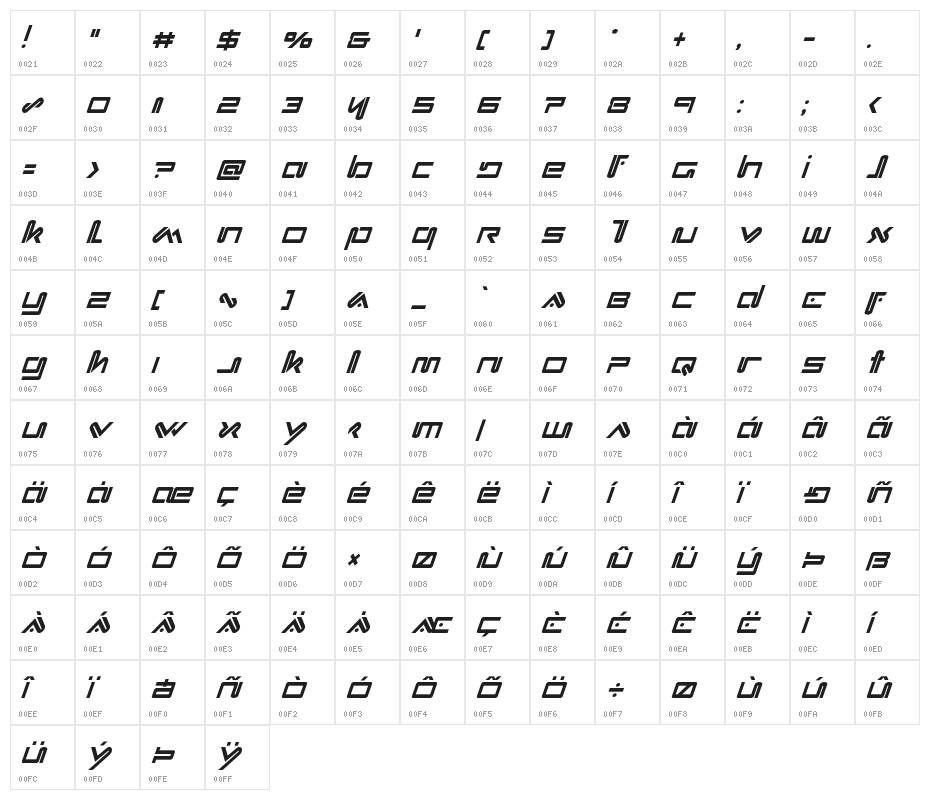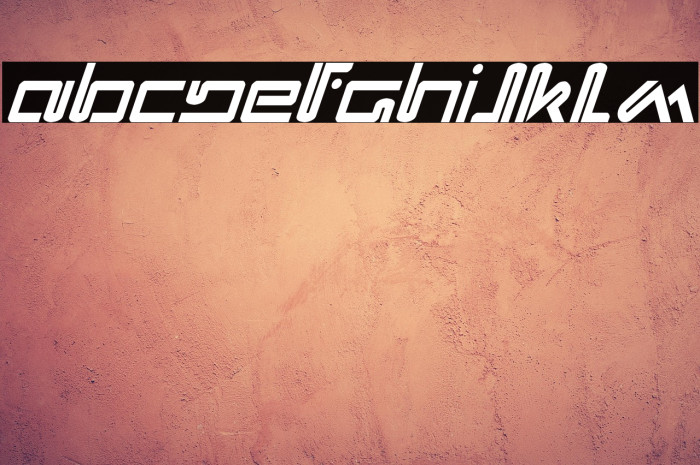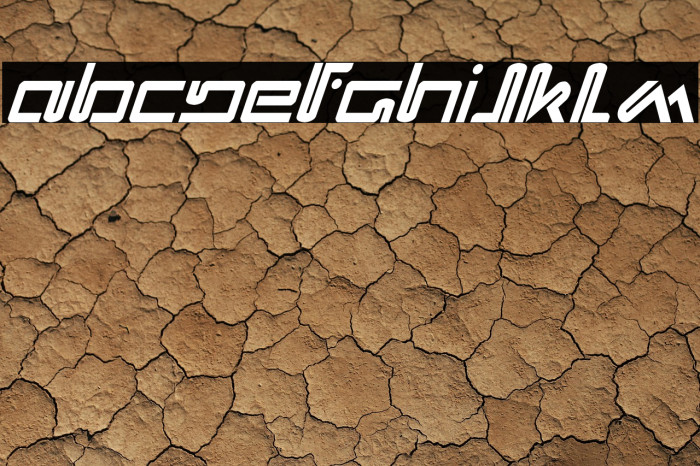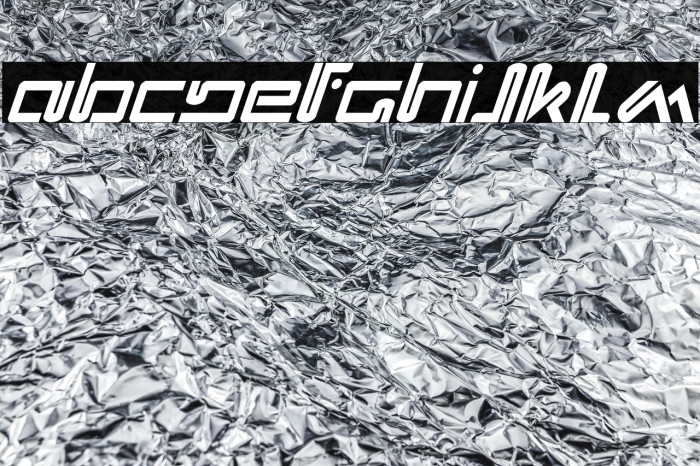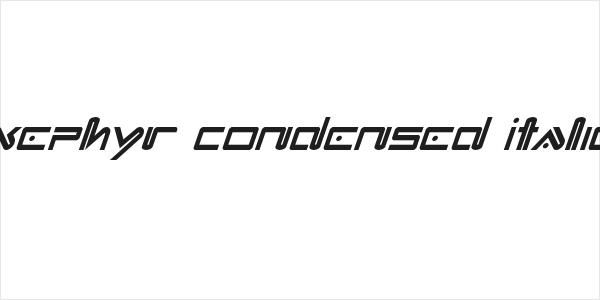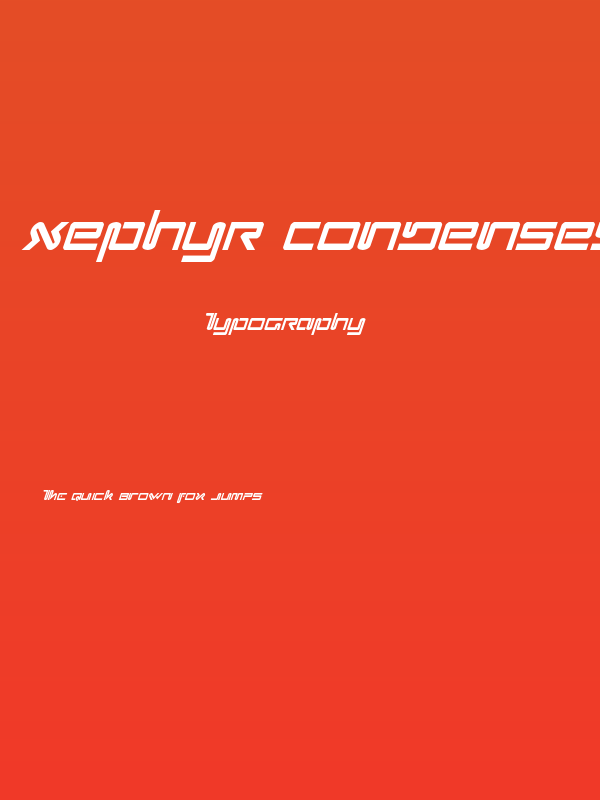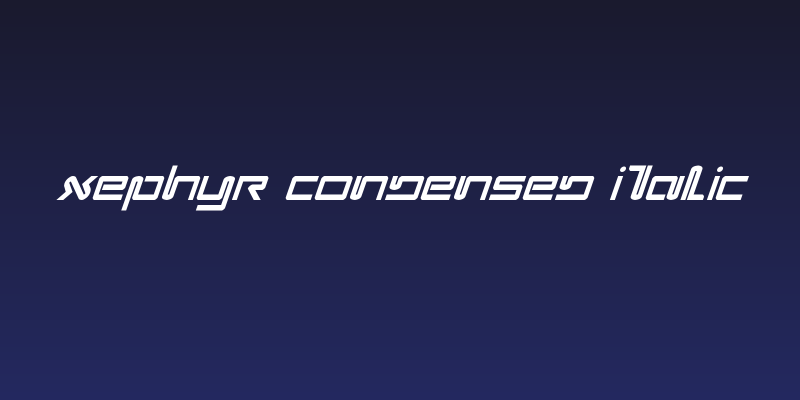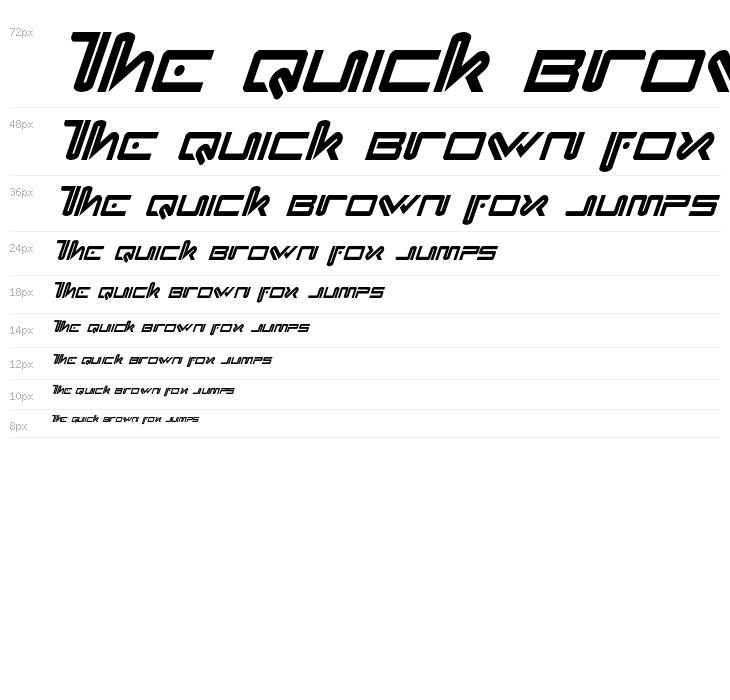
Xephyr Condensed Italic Font
Xephyr Condensed Italic Description
This font features a futuristic and dynamic design with a condensed and italicized style. The characters are sleek and angular, with a distinct forward slant that conveys motion and speed. The uppercase and lowercase letters maintain a consistent geometric form, while the numerals and special characters complement the overall aesthetic. The font's unique structure makes it ideal for projects that require a modern and edgy look, such as technology branding, sci-fi themes, or video game titles. Its bold presence and tight character spacing enhance its visual impact, making it suitable for attention-grabbing headlines and logos.
| Proposed Projects | Ideal for technology branding, sci-fi themes, video game titles, and dynamic logos. |